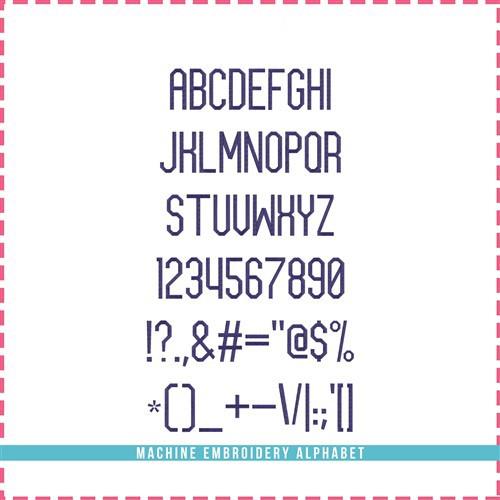
Maya Kreations is happy to present Team Athletics Embroidery Font - Classic Block Style - Home Format - PES, DST & 8 formats machine embroidery font which has Team Athletics Font features a classic block style, suitable for sports apparel and team merchandise. This versatile machine embroidery font is perfect for shirts and bags. Available in PES, DST, and 8 more formats. included. If you would like to view more embroidery fonts and alphabets please search our embroidery fonts page.